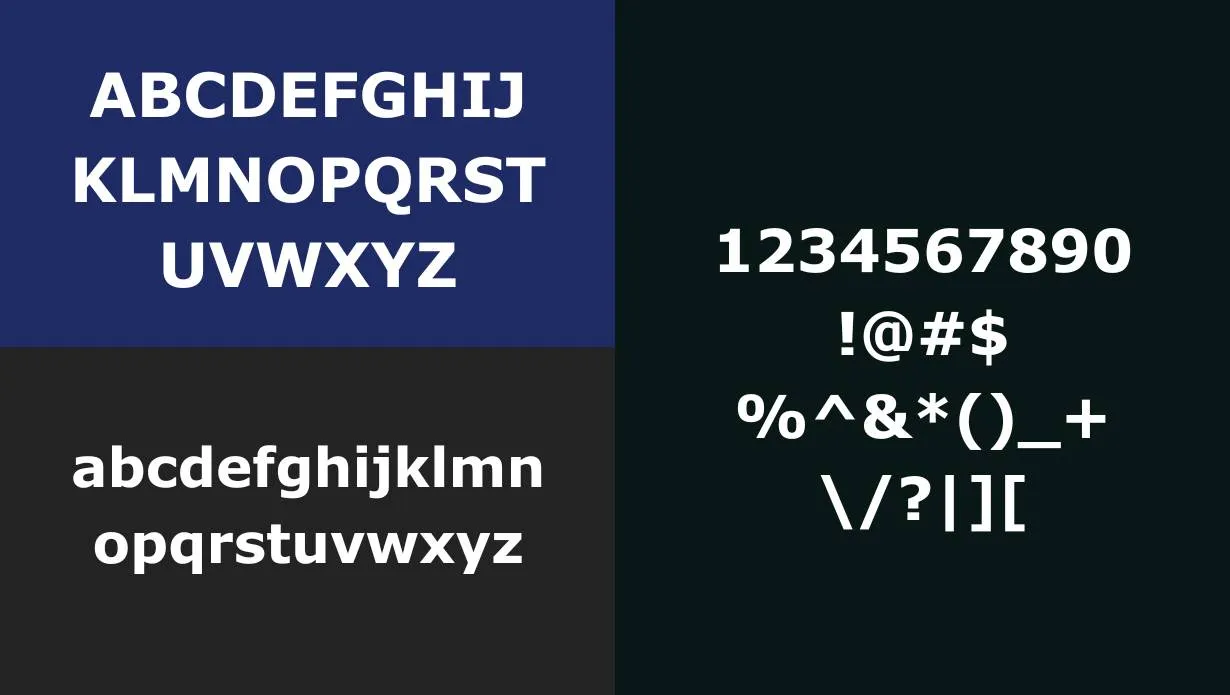
Verdana Cond Font is a sleek and modern typeface that adds a contemporary touch to design projects.
Verdana Cond Font Family
| Name | Verdana Cond Font |
| Designer | Matthew Carter |
With its clean lines and versatile design, it’s often used in branding, web design, and various applications where a modern and sophisticated appearance is desired.